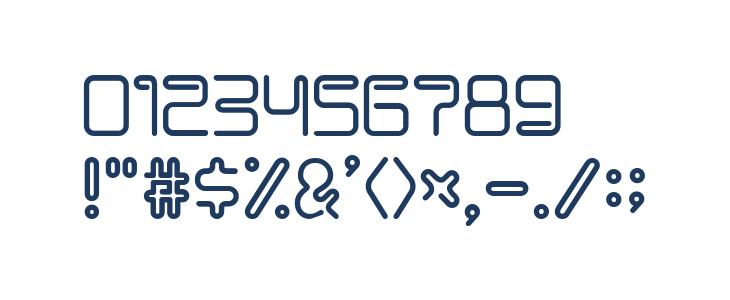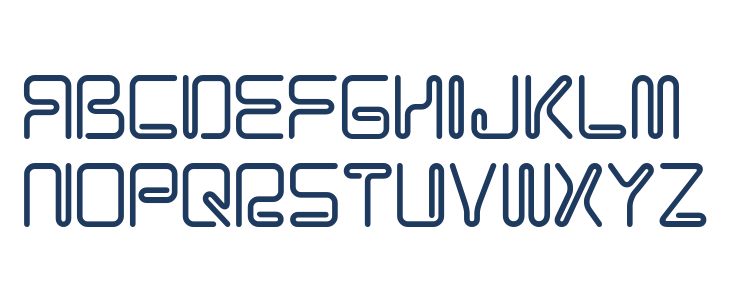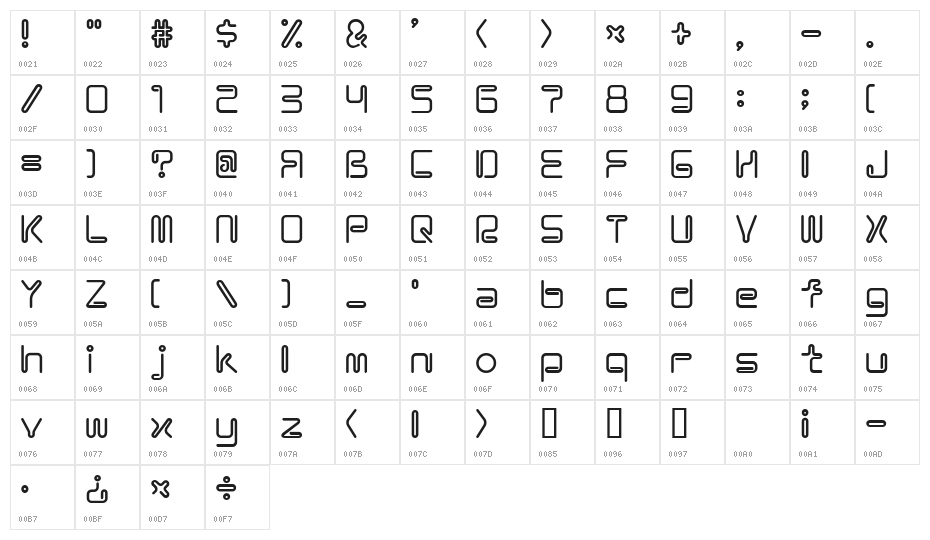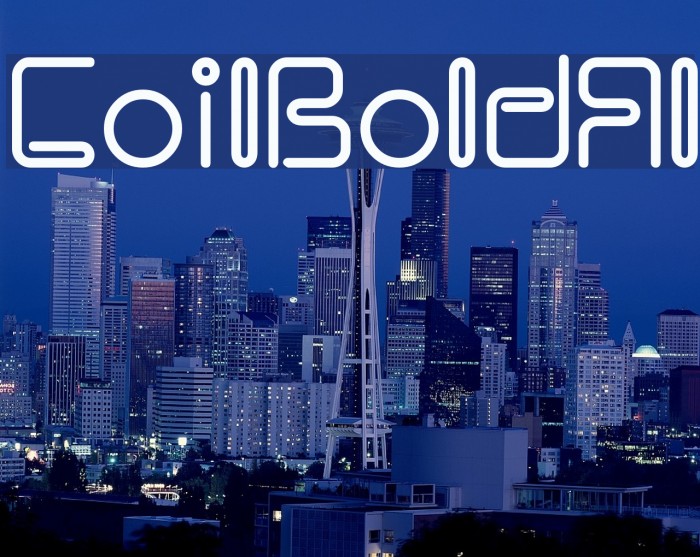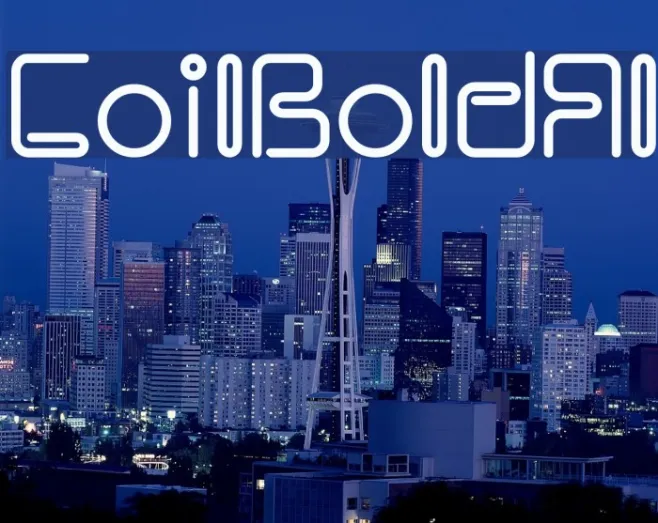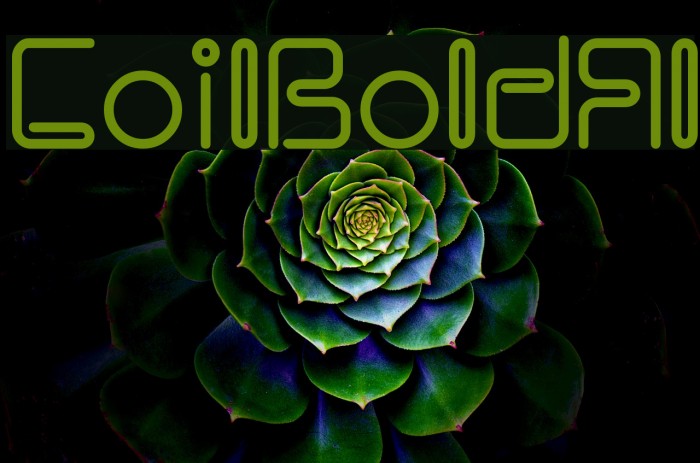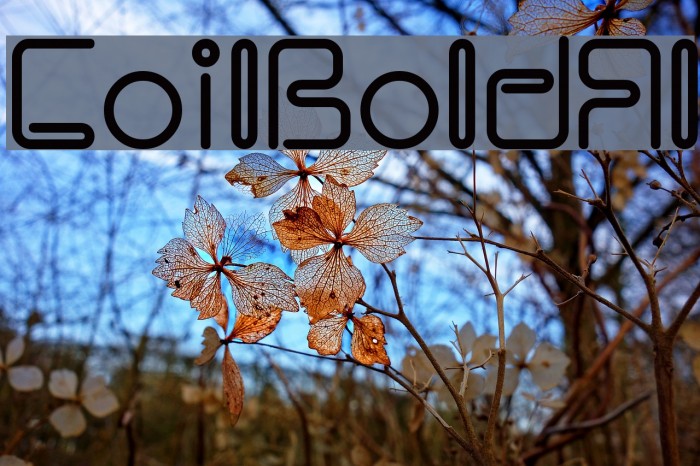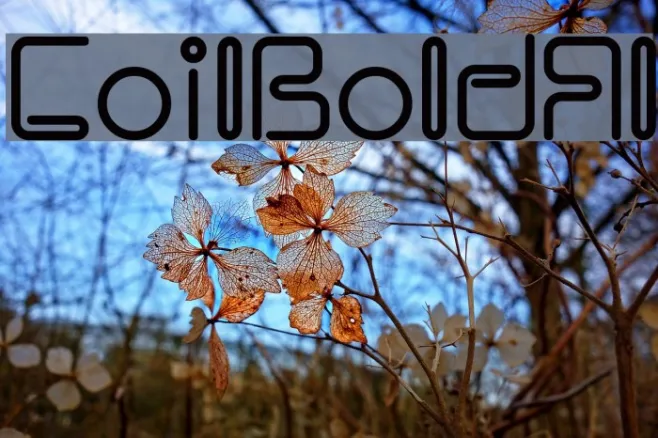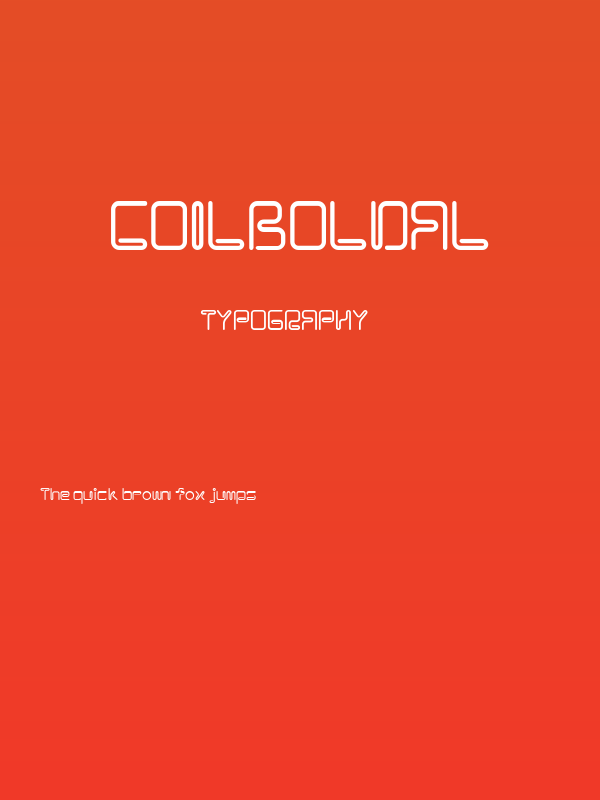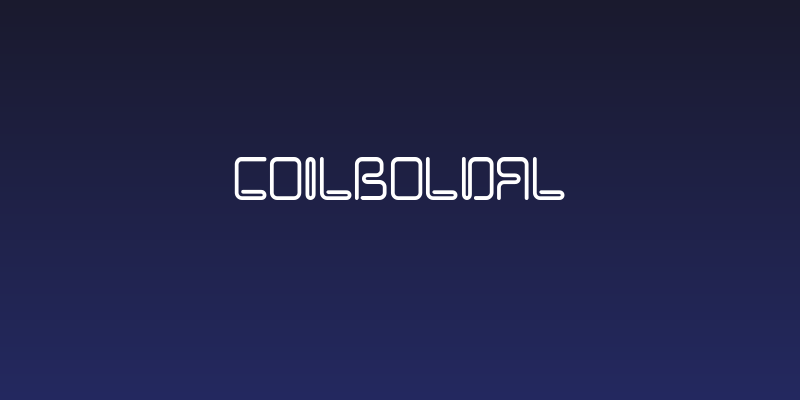
CoilBoldAl Font
CoilBoldAl Description
This font features a modern, futuristic design with a unique, tubular structure. Each character is composed of continuous lines that form rounded corners and smooth curves, giving it a sleek and cohesive appearance. The uppercase and lowercase letters maintain a consistent style, with the lowercase letters slightly smaller in height but equally bold. Numbers and special characters follow the same design principles, ensuring uniformity across all glyphs. The font's geometric nature makes it stand out, while its simplicity ensures readability. Its distinct style is ideal for projects that require a contemporary and innovative look.
| Proposed Projects | Ideal for tech branding, futuristic posters, digital interfaces, and innovative product packaging. |